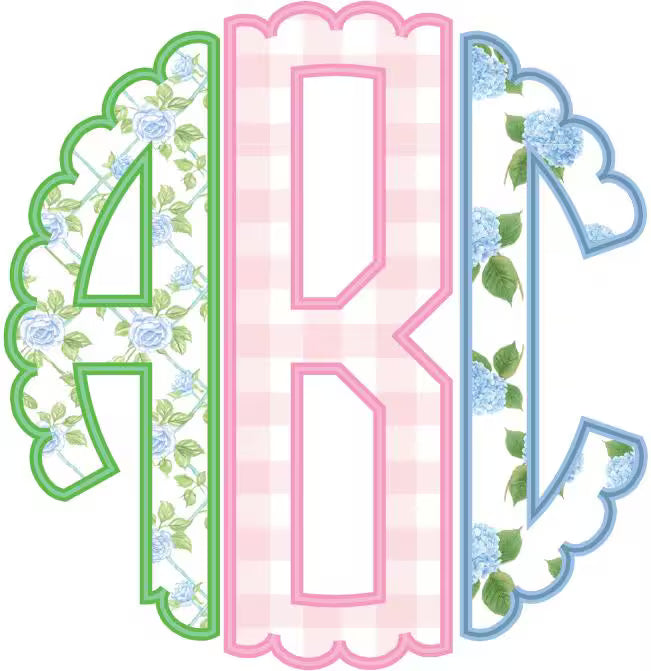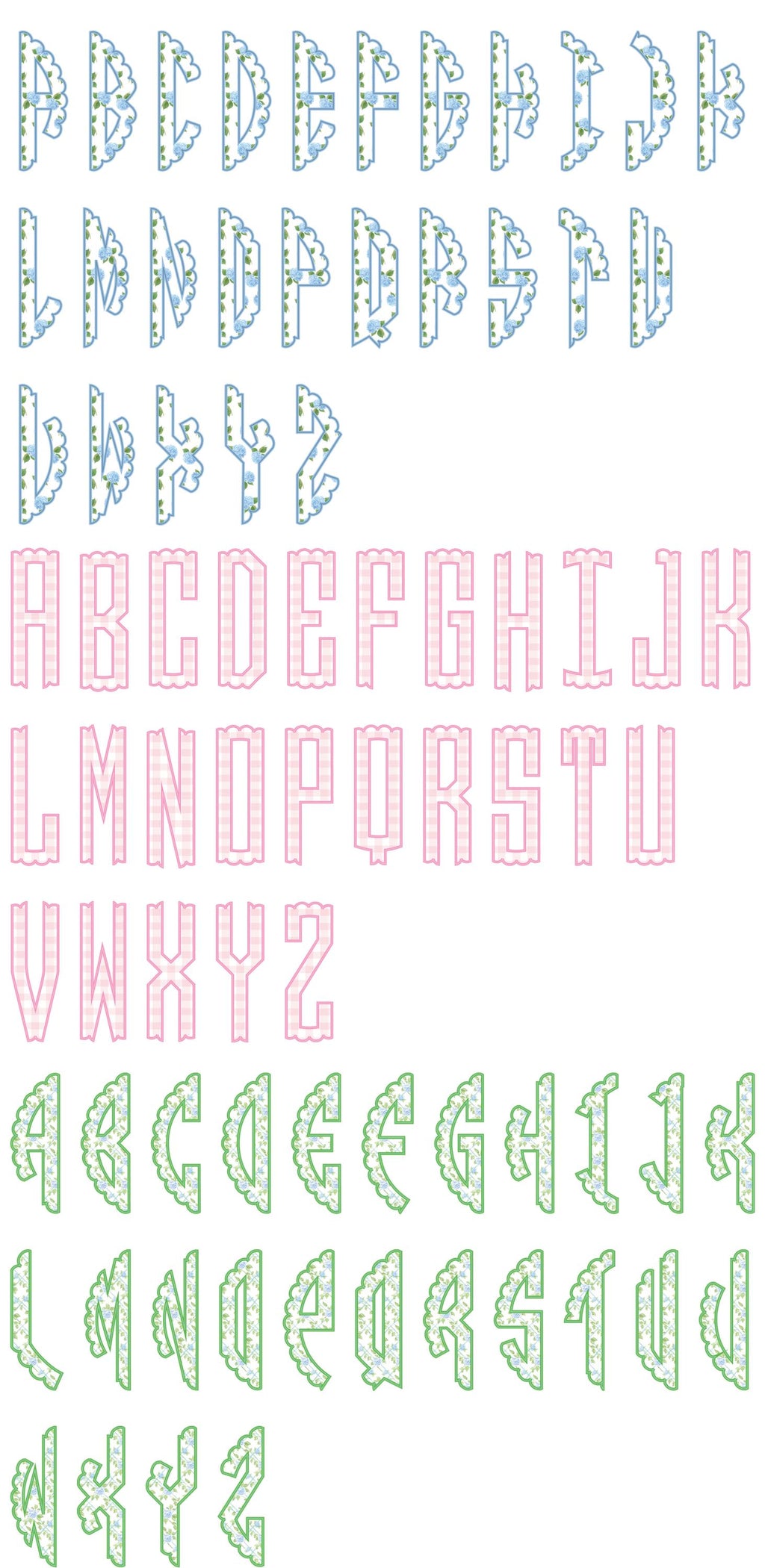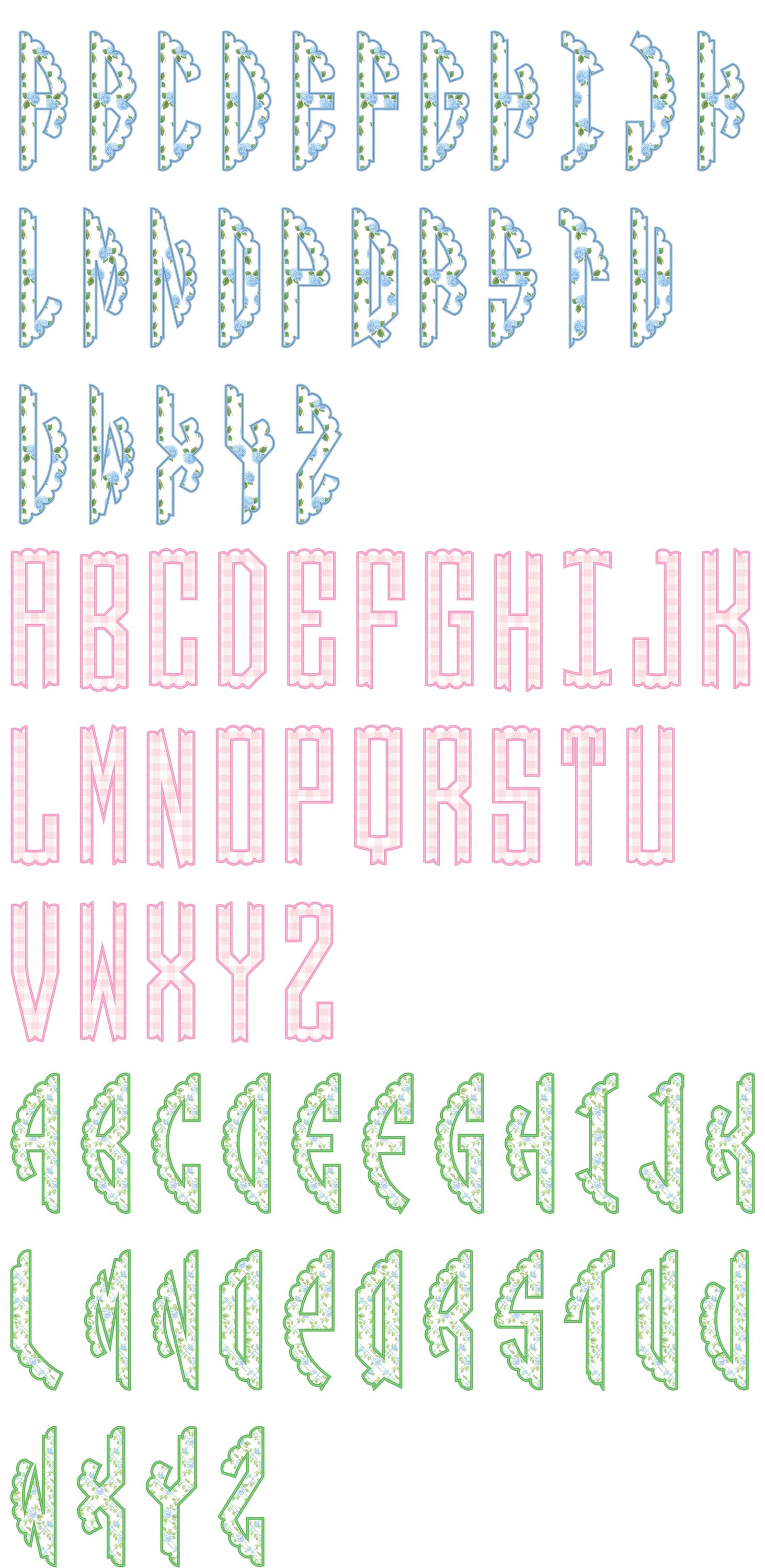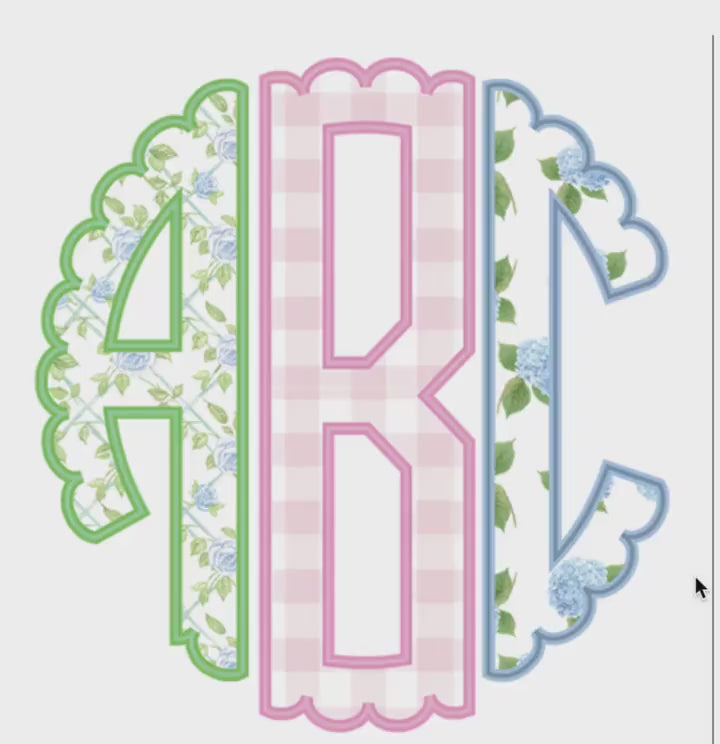
Grandmillennial Scallop Monogram .OTF and PNG Font: Includes 76 Letters + otf font pack
This hydrangea, roses, & gingham font Includes:
26 left letters (blue rose/green trim)
26 center letters (pink gingham/pink trim)
26 right letters (blue hydrangeas/blue trim),